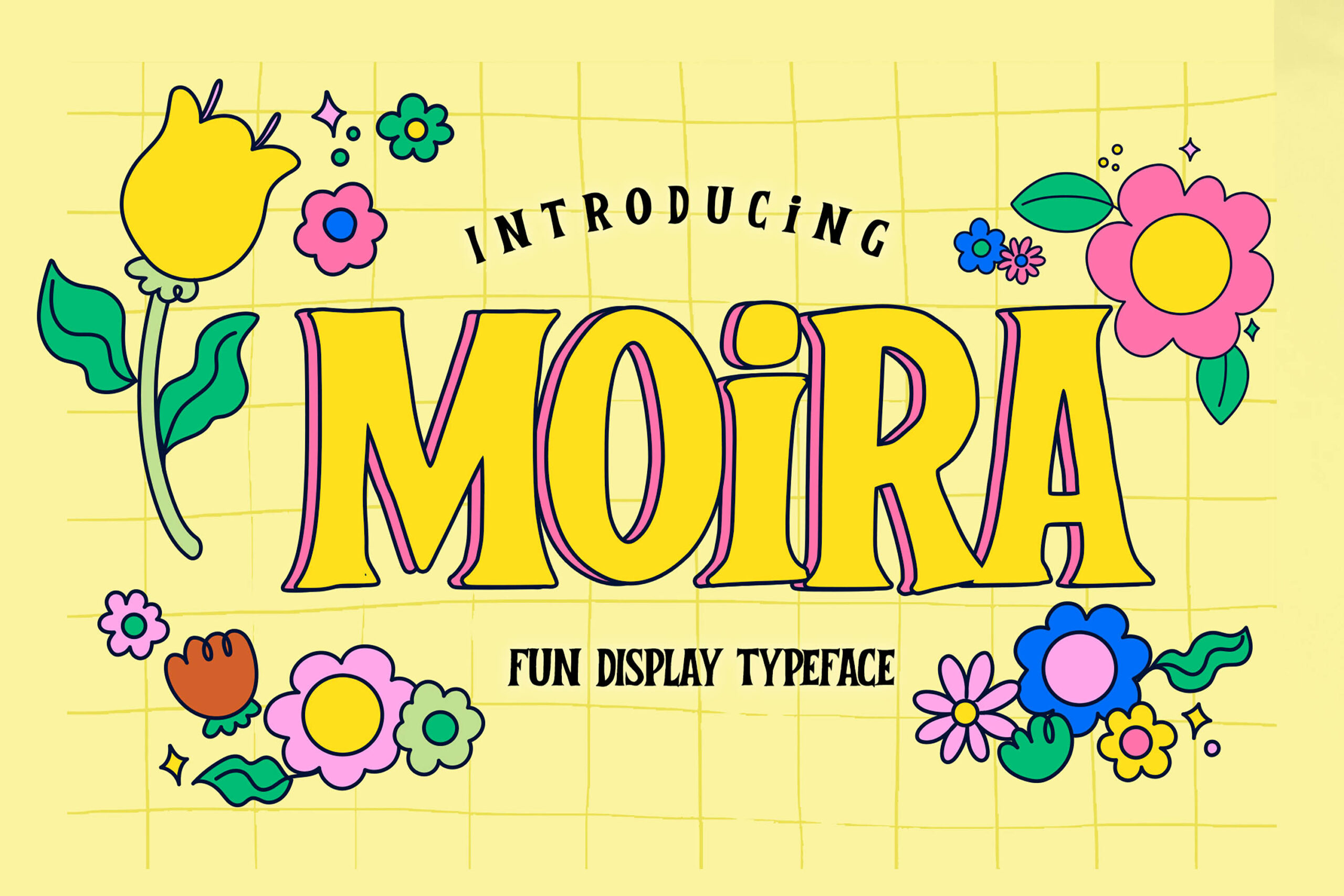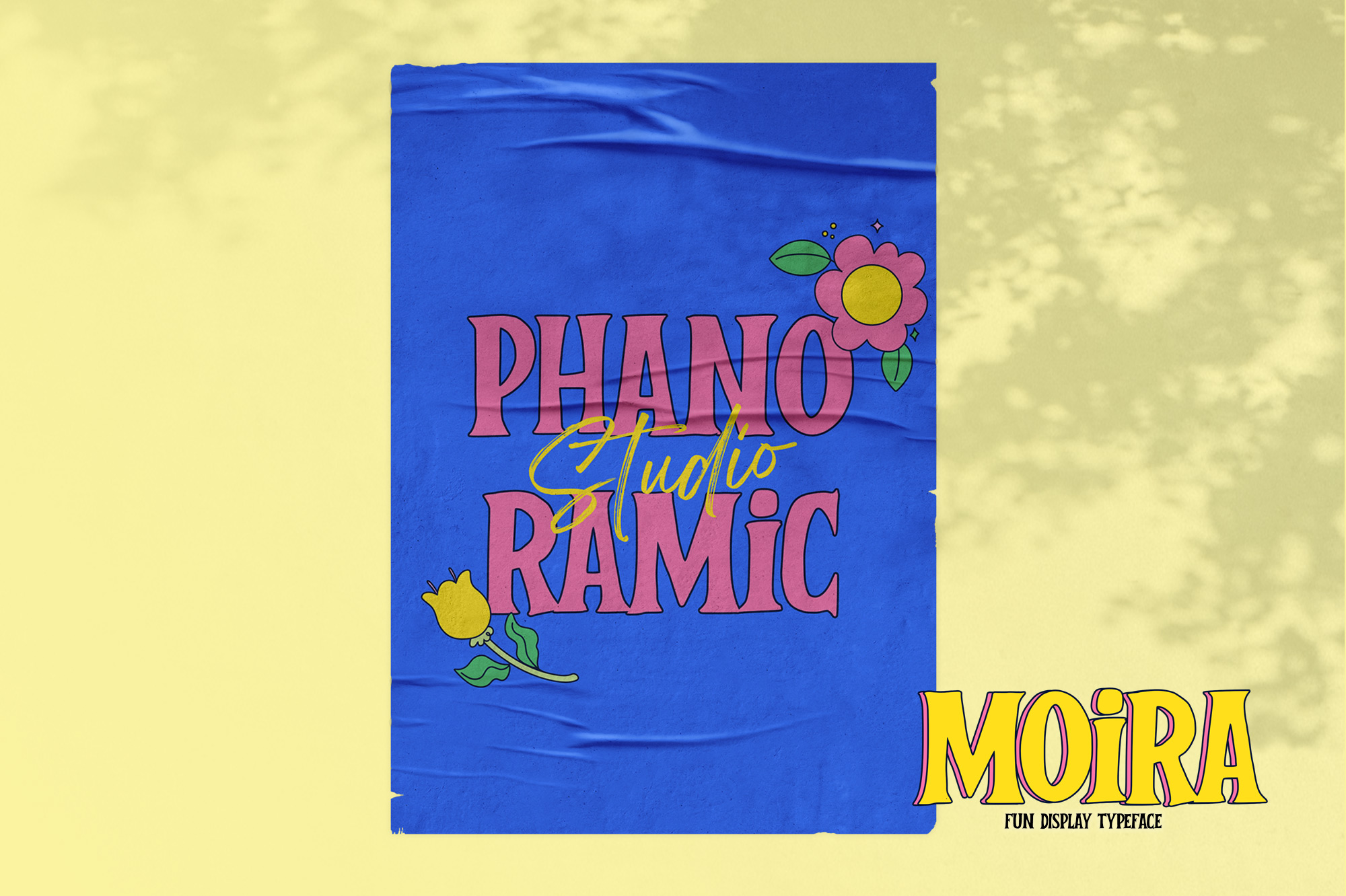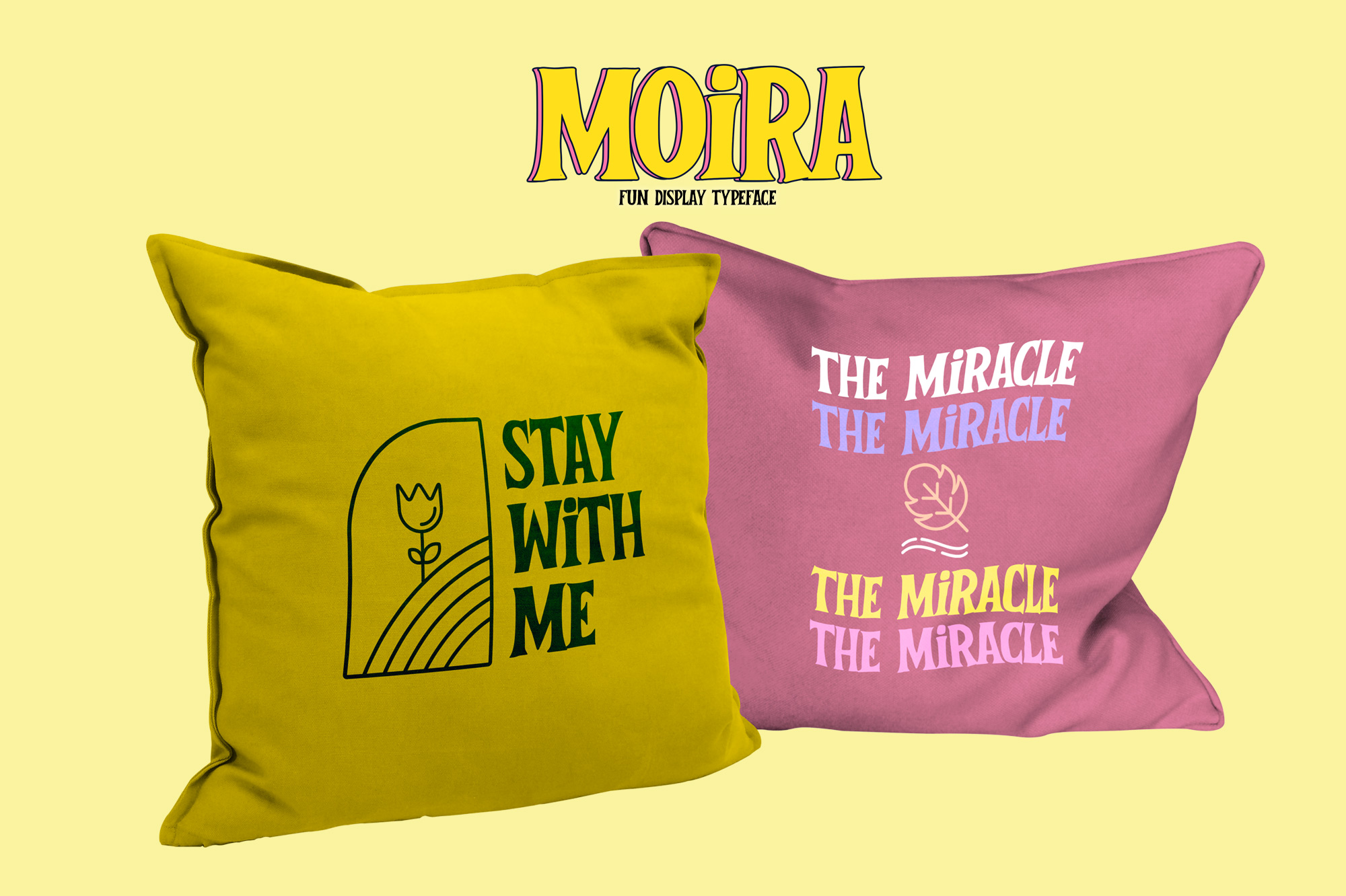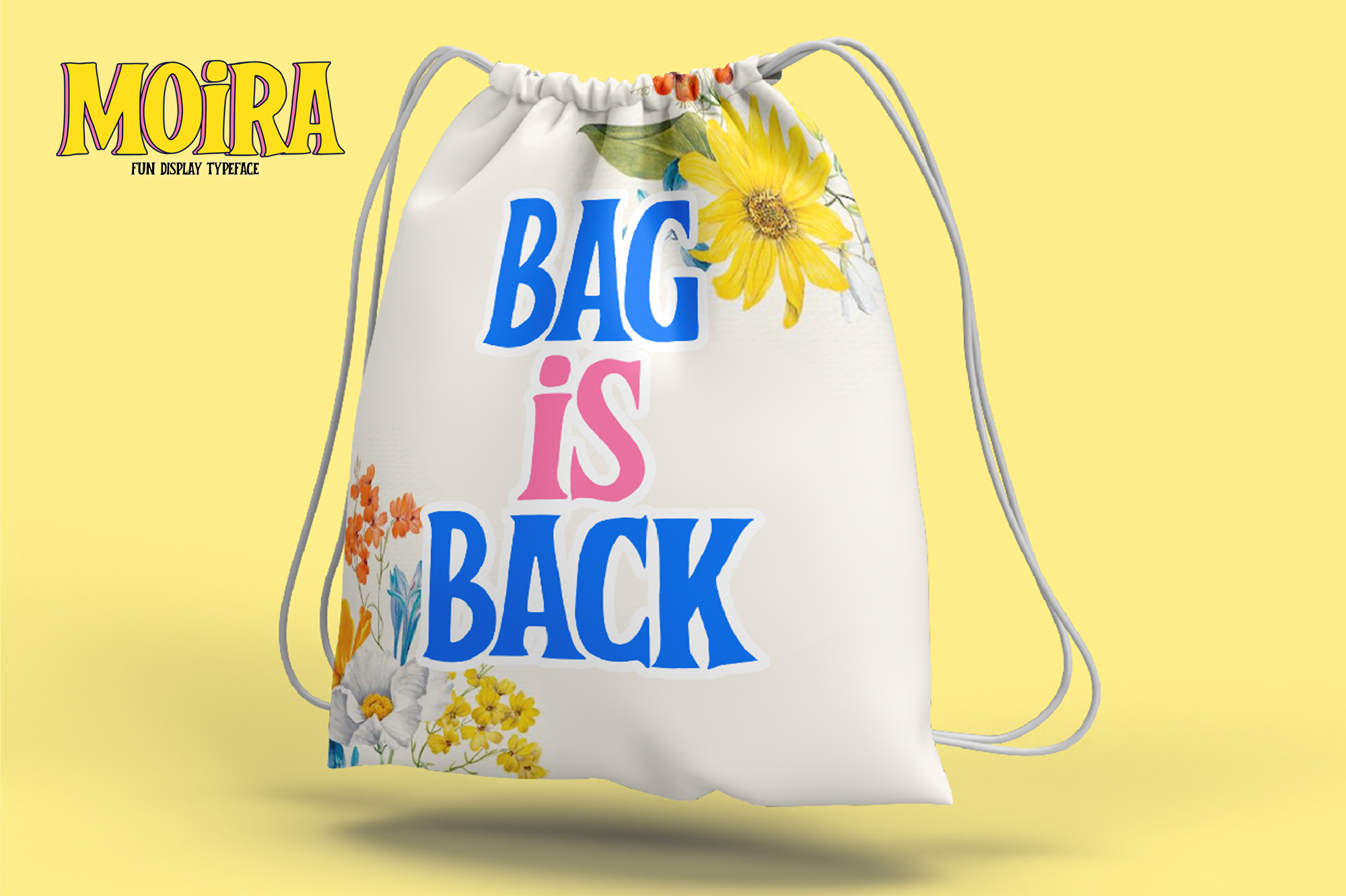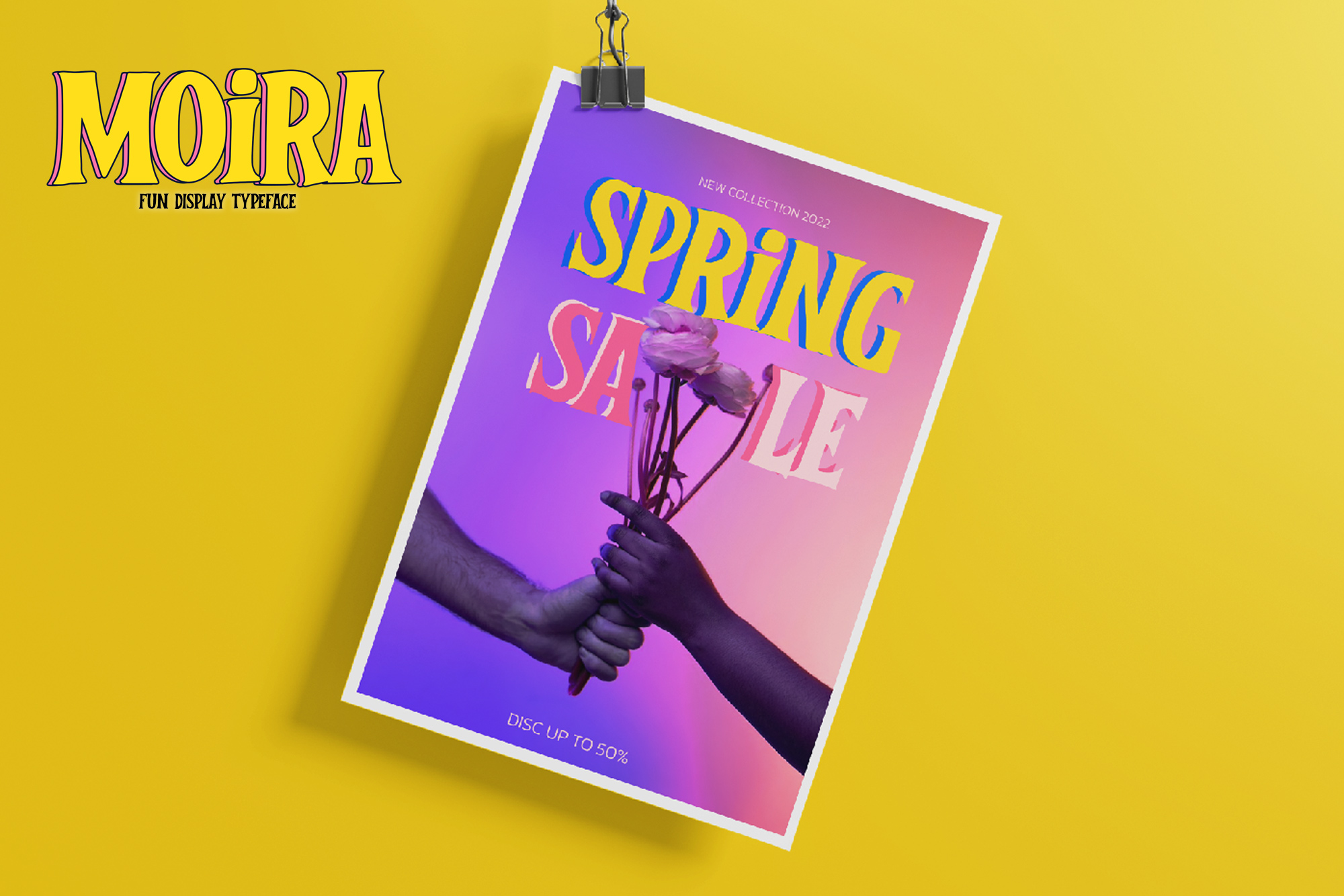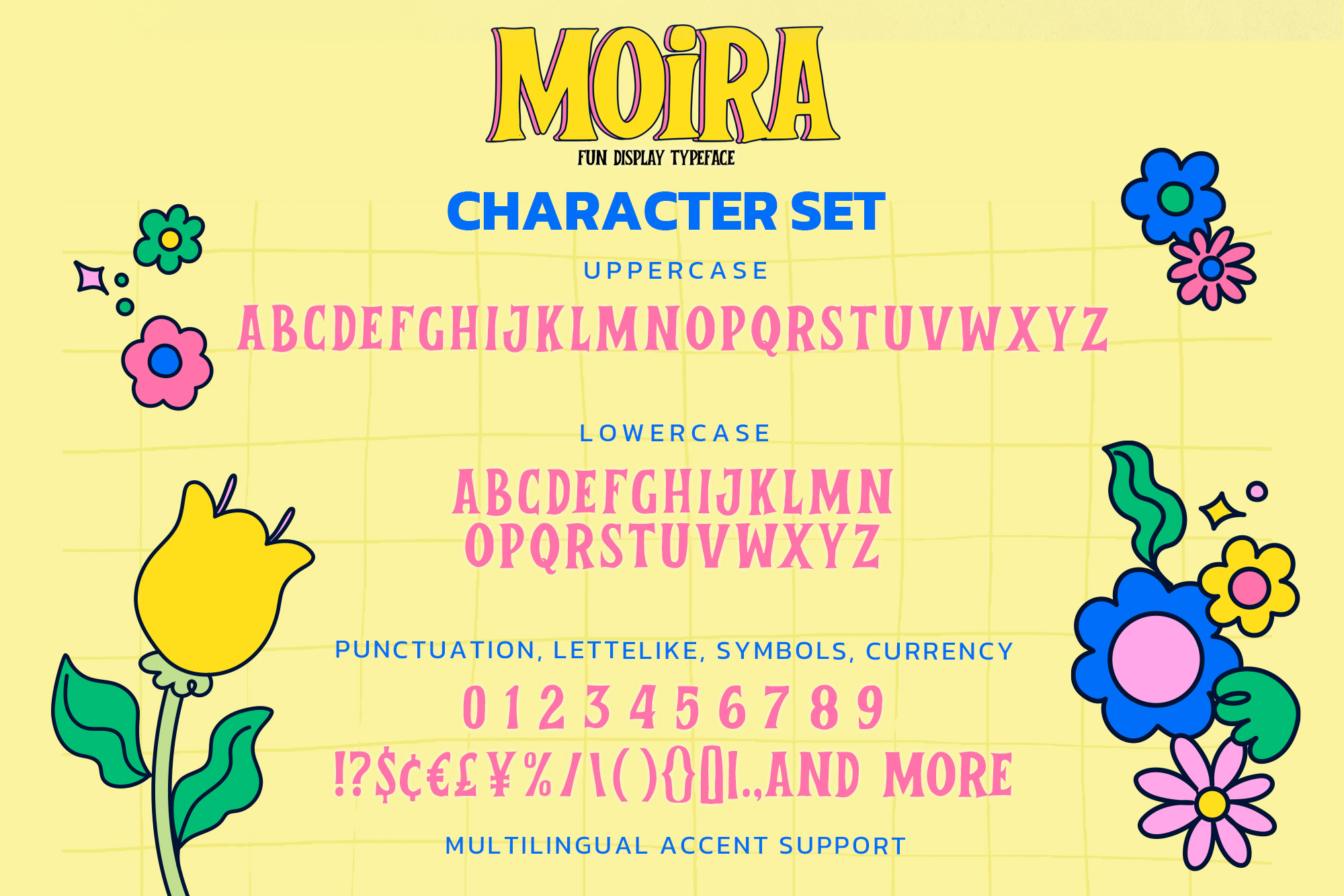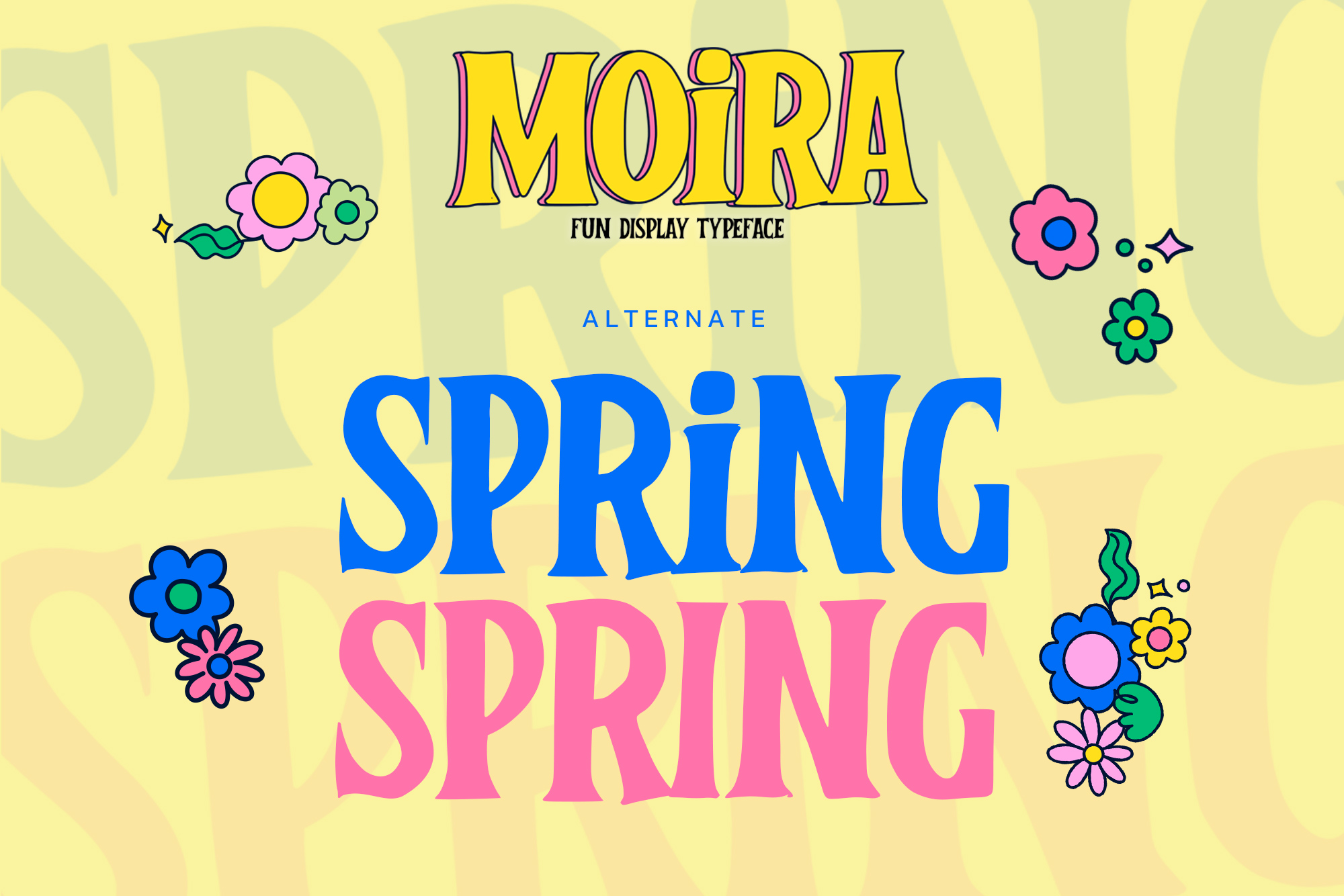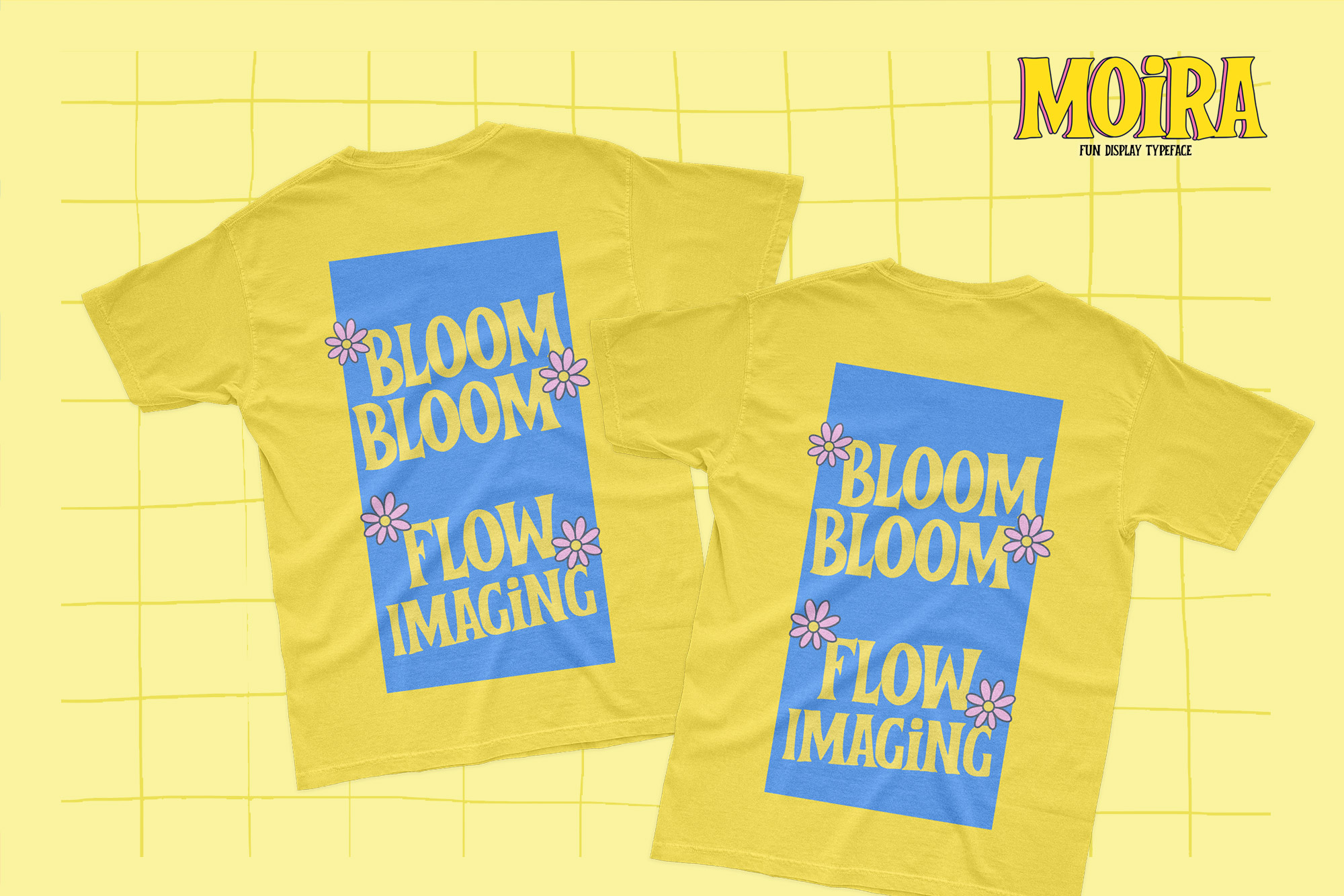
MOIRA – Fun Display Typeface, modern style and dramatic movement that is written casually and quickly.
The best for labels,poster,project , designs look modern, authentic and unique. It’s perfect for labels, quotes, posters, DIY projects, branding, packaging, greeting cards, websites, photography overlays, signs, scrapbooking, tags and so much more! That is why MOIRA has a textured, and elegant characteristic more natural look. You can activate Alternate glyphs OpenType panel.